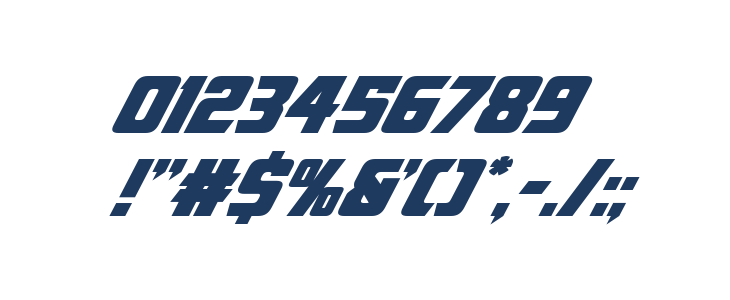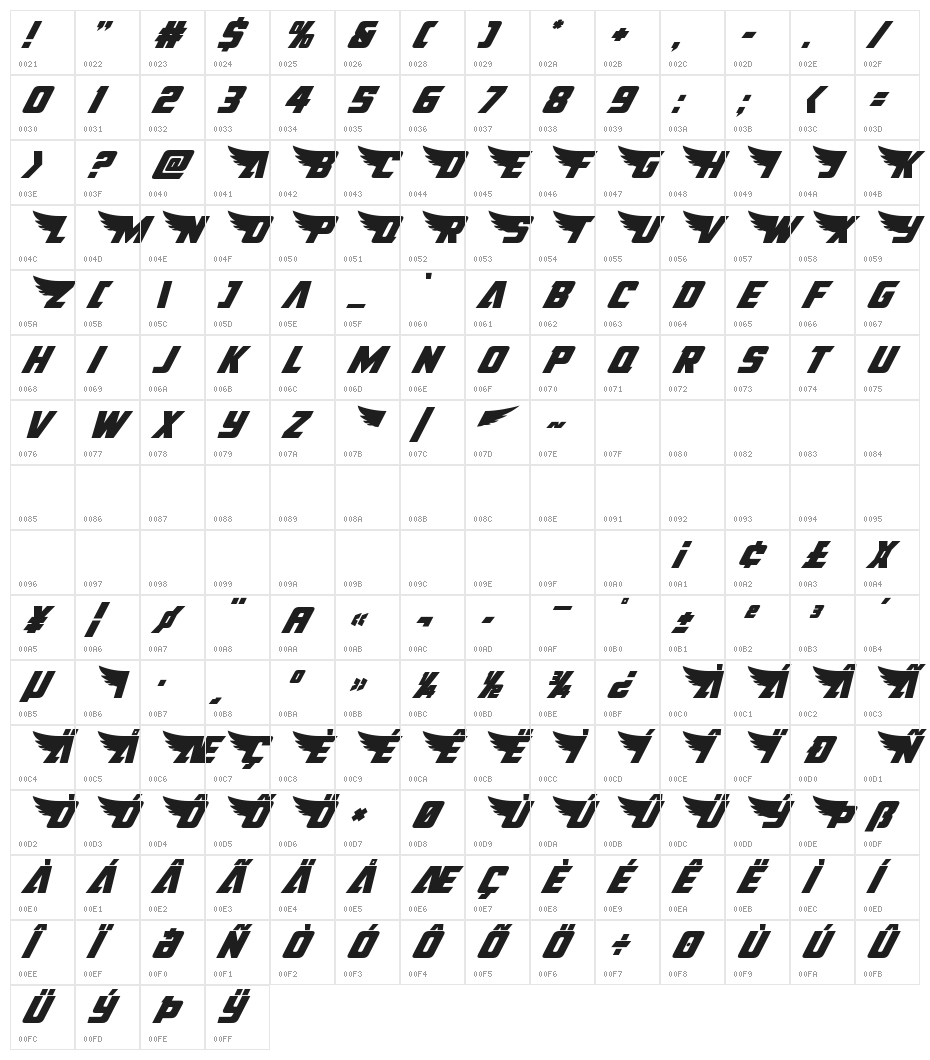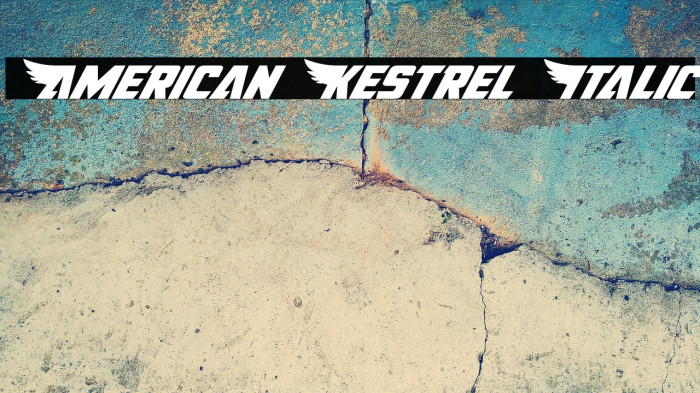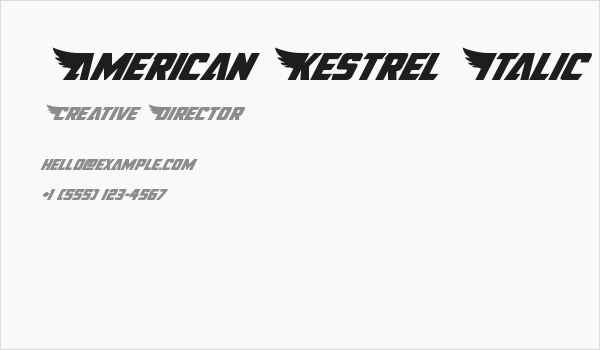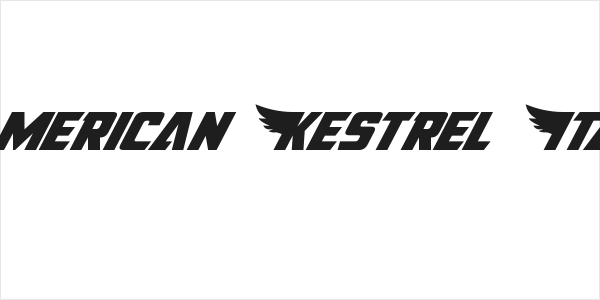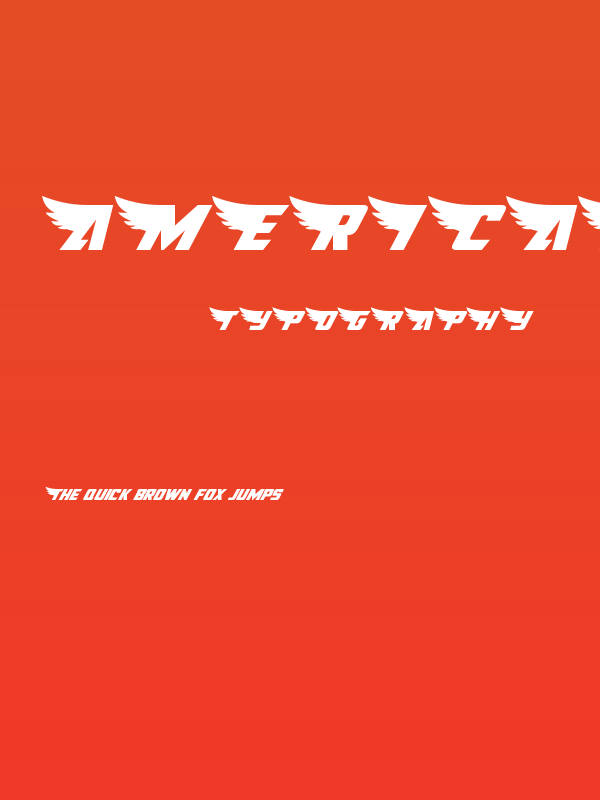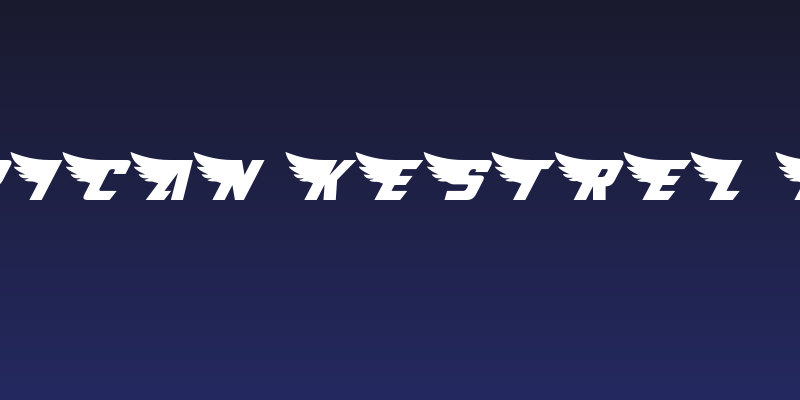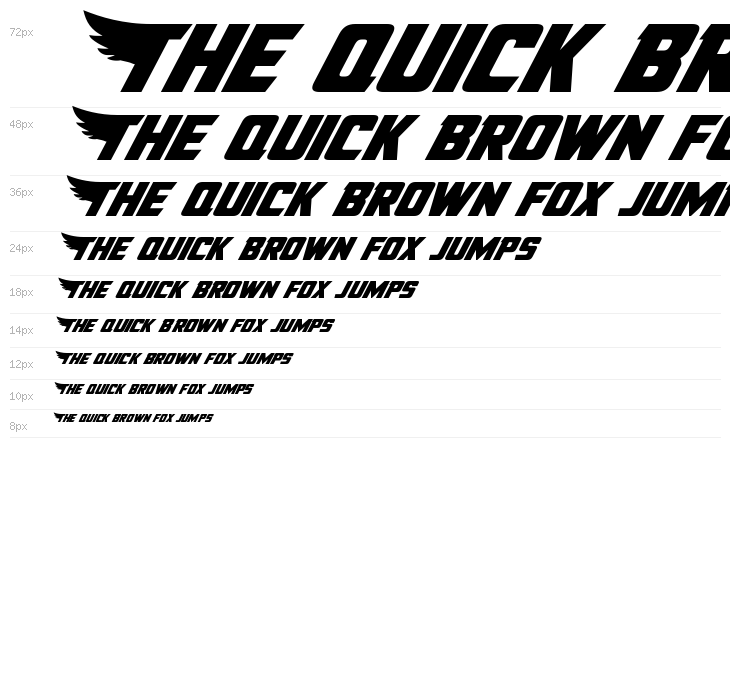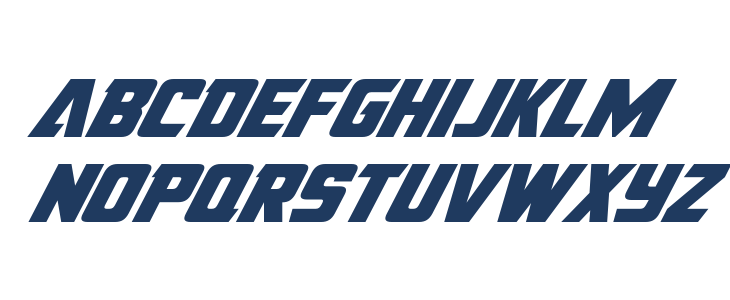
American Kestrel Italic Font
American Kestrel Italic Description
This font features a bold, italicized style with a distinct modern flair. The uppercase letters are designed with sharp, angular edges and a slight slant, giving them a dynamic and energetic appearance. The lowercase letters maintain the same angular design, ensuring consistency throughout the typeface. Numbers and special characters are crafted with the same boldness and angularity, making them stand out. The font's unique characteristic is the incorporation of wing-like elements on some letters, adding a decorative touch. This design choice enhances the font's visual appeal, making it suitable for projects that require a strong, impactful typeface.
| Use Case | Logos, Headlines |
| Proposed Projects | Ideal for sports branding, dynamic posters, and modern logo designs. |